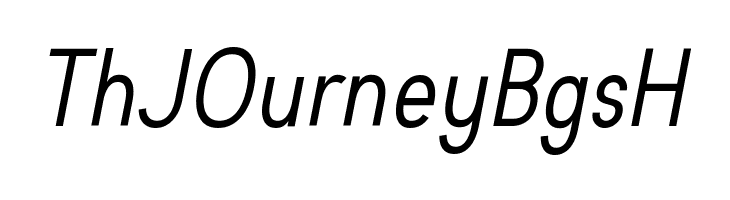
Aprikas Black Demo Font
A bold, modern font with thick strokes and a strong presence.
Aprikas Bold Demo Font
A bold, modern sans-serif font with clean lines and uniform stroke width.
Aprikas Regular Demo Font
A clean, modern sans-serif font with uniform stroke width and excellent readability.
Aprikas Black Italic Demo Font
Bold, italicized font with thick strokes and a dynamic slant.
Aprikas Light Demo Font
A clean, modern sans-serif font with a light weight and uniform appearance.
Aprikas Light Italic Demo Font
A sleek, light italic font with a modern and elegant design.
Aprikas Bold Italic Demo Font
Aprikas Italic Demo Font
A modern, italicized font with a clean and elegant style.